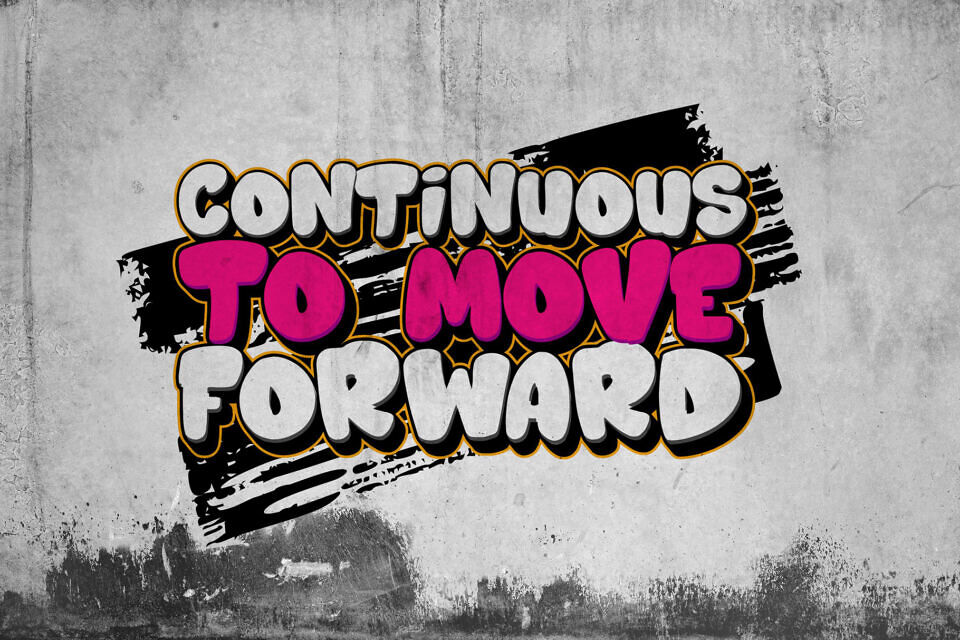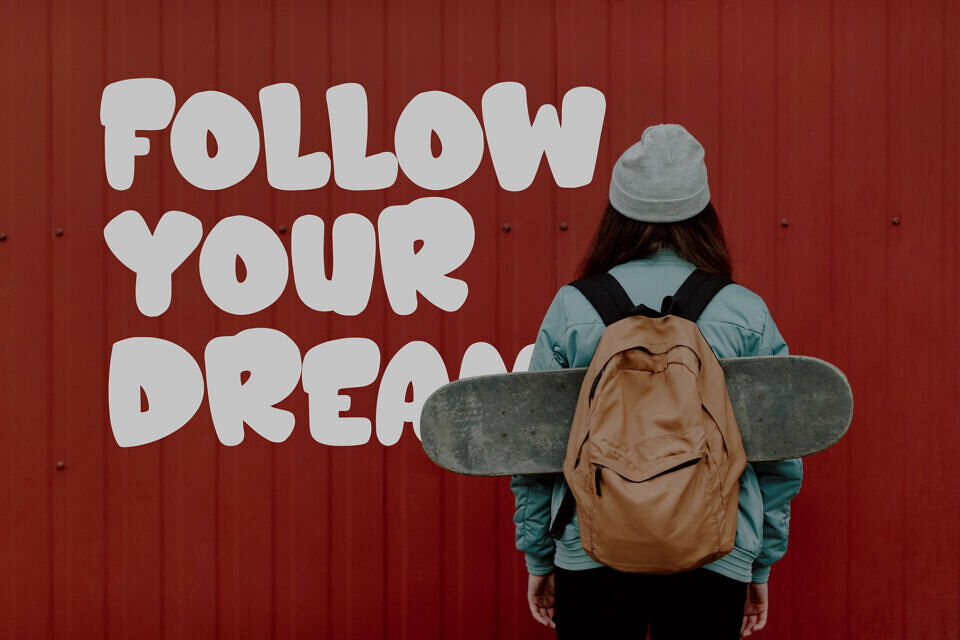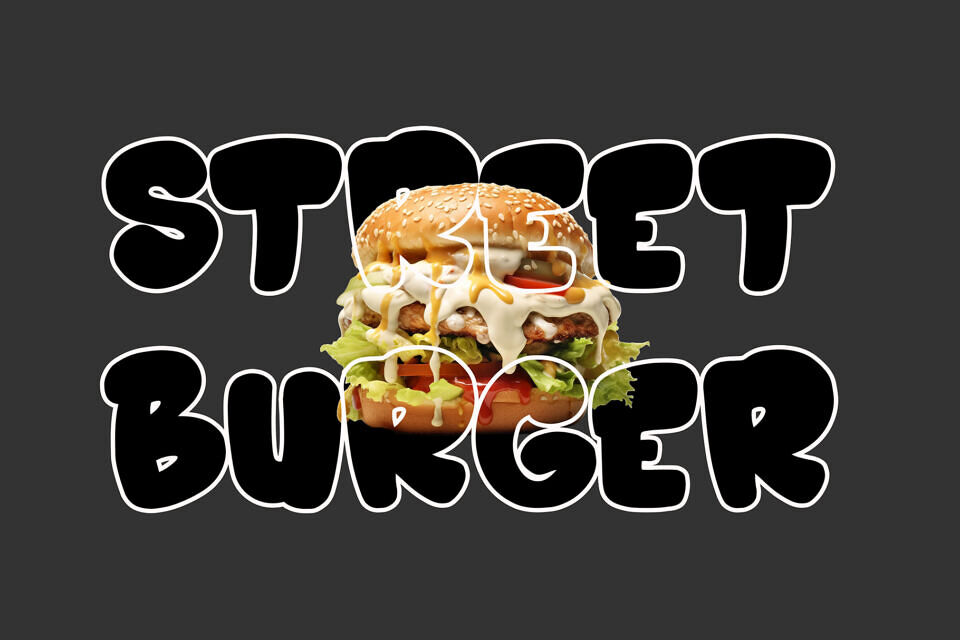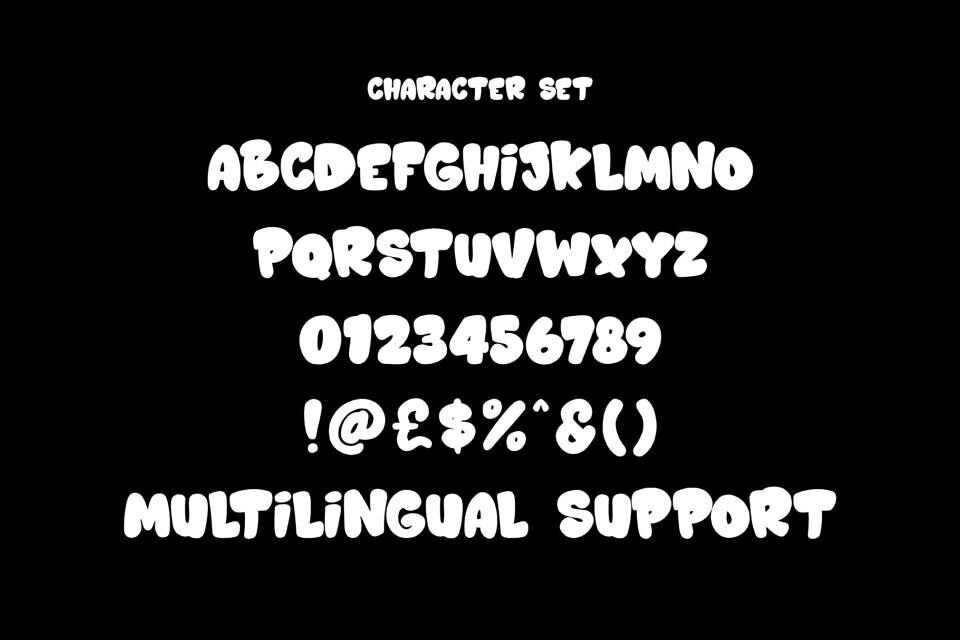
Rusted Vibe is a layered graffiti gont is built to bring raw energy, bold style, and layered creativity into your projects. With its unique three-layer system—Regular, Inner, and Shadow—this graffiti font gives designers the tools to create depth, vibrancy, and authentic street-inspired artwork.
This layered graffiti font isn’t just about letters; it’s about attitude. Perfect for posters, event flyers, music covers, and branding that demands attention, Rustic Vibe delivers the street-culture vibe in a professional, ready-to-use package.